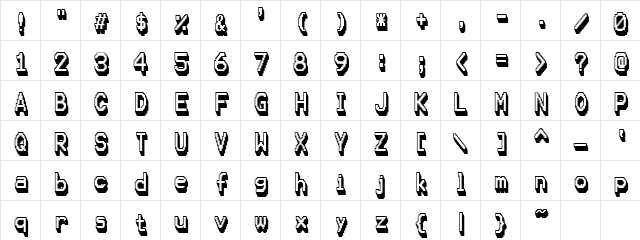
Karma Suture Regular
Karma Suture Family
Karma Suture Regular
Karma Suture Regular Font Preview
Karma Suture Regular Uppercase Preview
Karma Suture Regular Lowercase Preview
Karma Suture Regular Numeric Preview
Karma Suture Regular Character Map
Complete Karma Suture Regular glyph index. Displaying only characters natively supported by Karma Suture Regular font.
Karma Suture Regular Character Map
Design Context for Karma Suture
Karma Suture is a composed and adaptable typeface that performs quietly and consistently across a wide range of design contexts.